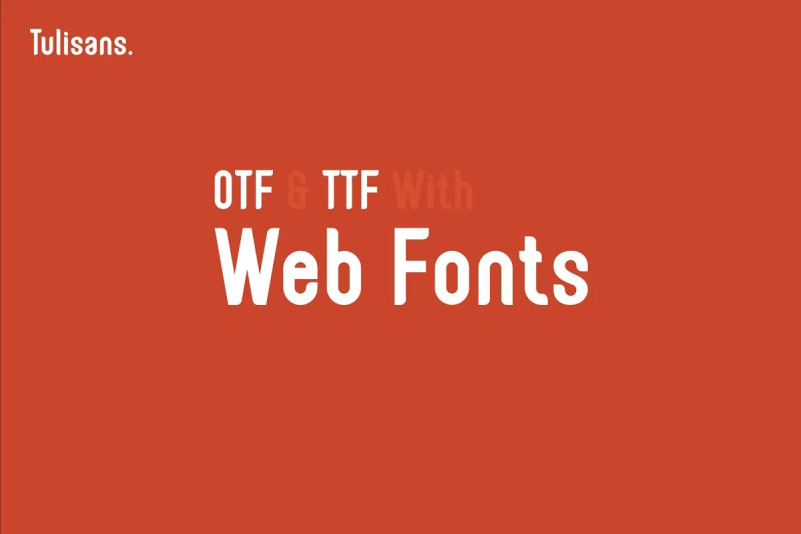
Tulisans Font
Tulisans Sans Serif Font is a simple sans serif typeface, with semi-rounded edges for a smooth, clean look. It’s perfect for logo designs, titles or subtitles, branding, and small amounts of text. Fonts include uppercase alphabet, numbers, and common symbols, and multilingual support.